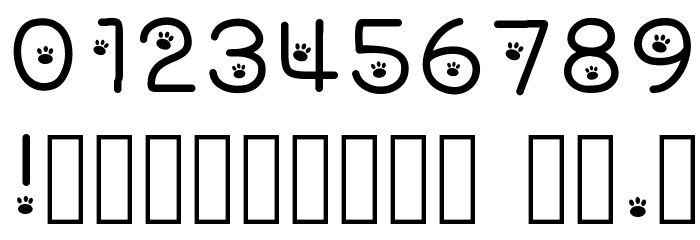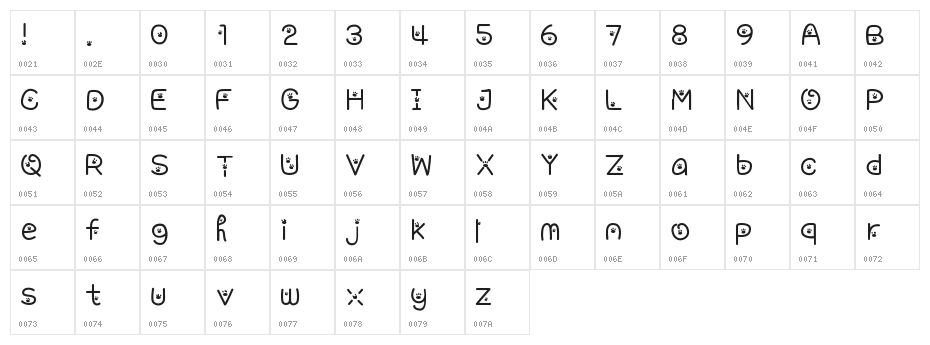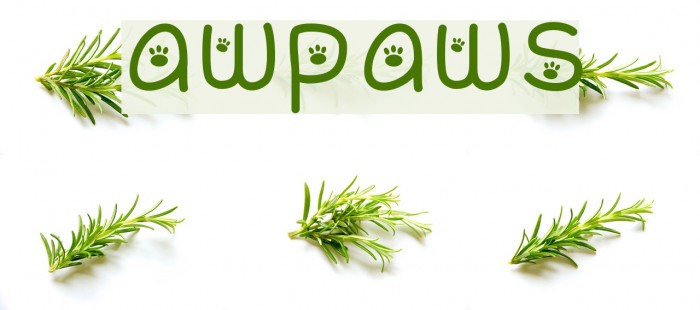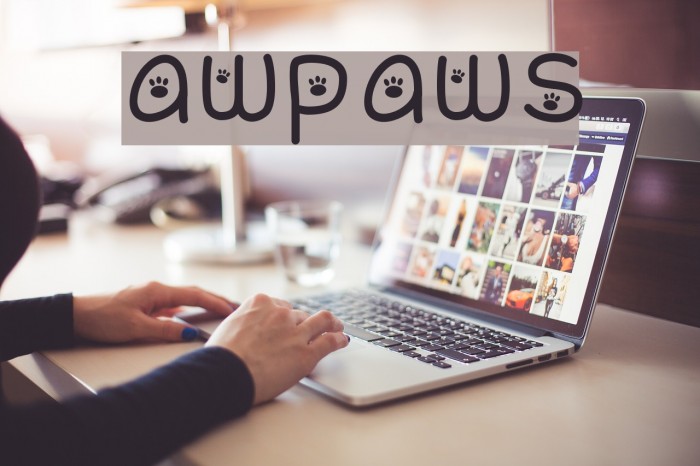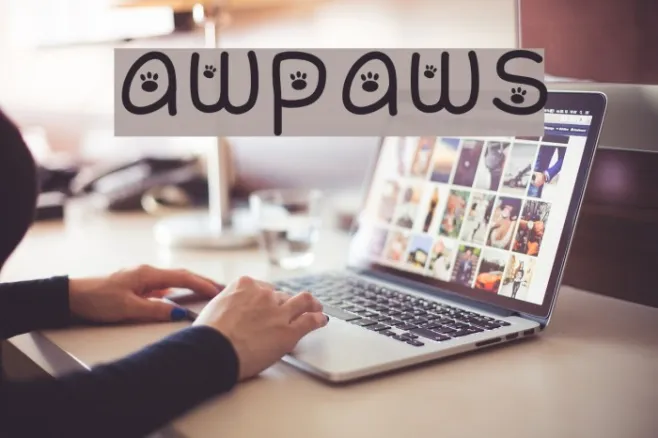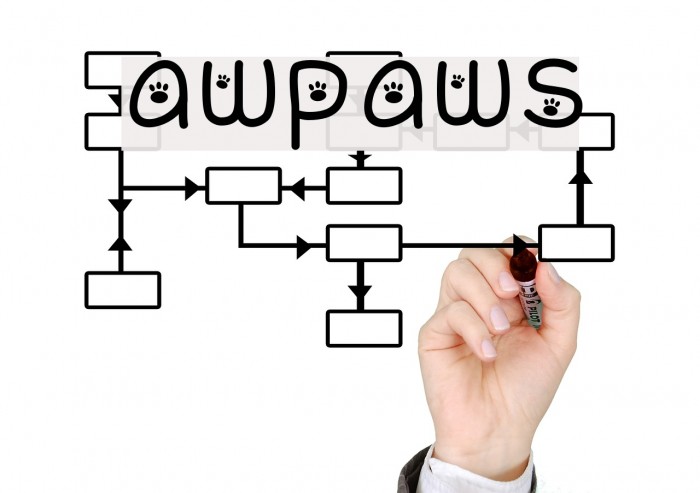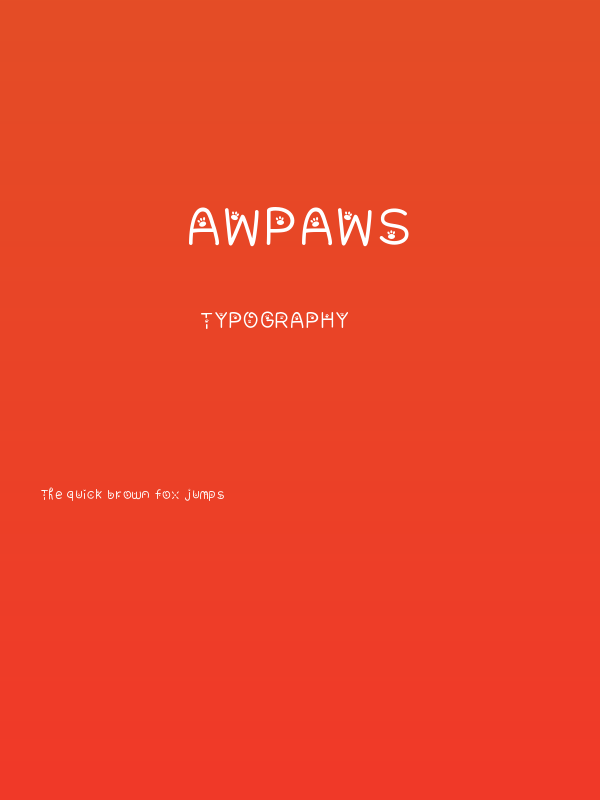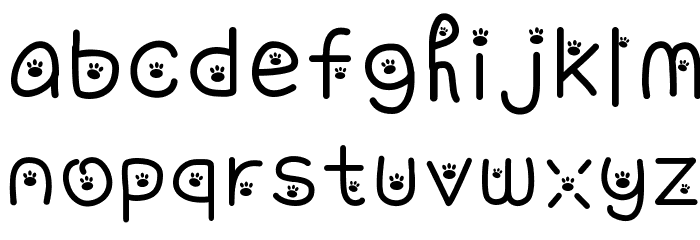
awpaws Font
awpaws Description
This playful and whimsical font features a unique design where each character is adorned with small paw prints, adding a touch of charm and personality. The letters are rounded and slightly bold, creating a friendly and approachable appearance. The consistent integration of paw motifs throughout the alphabet and numbers enhances its thematic cohesion, making it ideal for projects related to pets, children, or anything requiring a fun and lighthearted touch. The font maintains a uniform stroke width, ensuring readability while still being decorative.
| Proposed Projects | Ideal for pet-related branding, children's books, playful invitations, and animal-themed merchandise. |